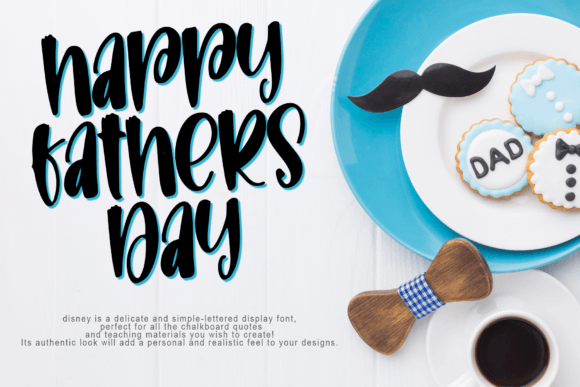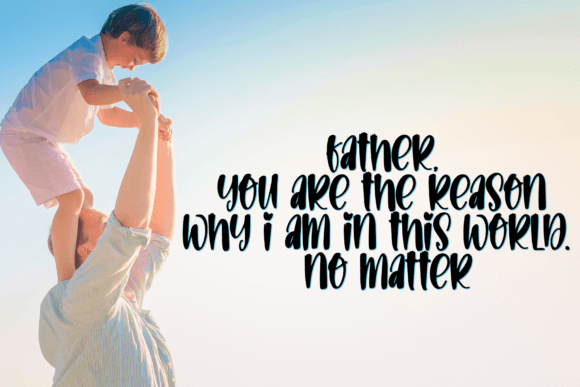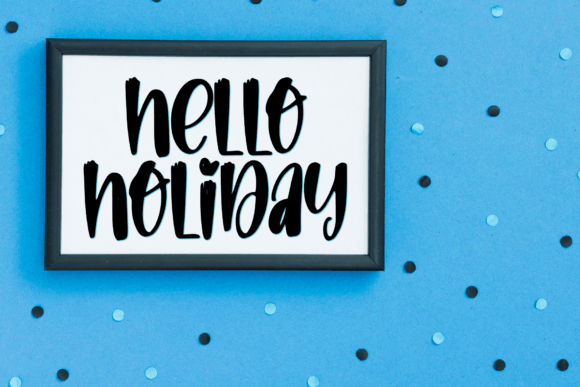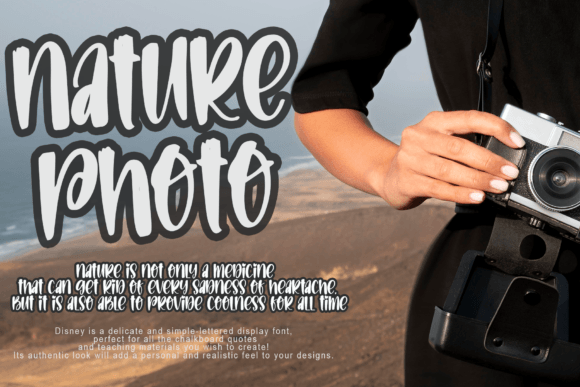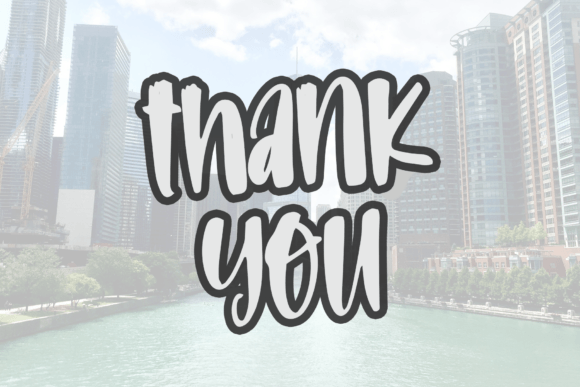
The Magical World of Disney Font: A Designer’s Delight
I’ll never forget the time I was working on a children’s book project, and my client asked me to create a custom title page that would capture the essence of their story. I spent hours scouring the internet for the perfect font, but nothing seemed quite right. That was until I stumbled upon the Disney font. Its playful curves and friendly demeanor instantly won me over, and I knew I had found the perfect fit. In this article, I’ll share my love for the Disney font, its features, and how to use it in various design platforms.
An Honest Review of Disney Font
What I Love About Disney Font
- ✨ Playful and whimsical design that’s perfect for children’s books, party invitations, and other cheerful projects
- ✅ Friendly and approachable feel that evokes a sense of camaraderie and joy
- 💕 Highly legible, even at small font sizes
- 🎉 Available in various weights and styles, making it versatile for different design applications
While Disney font is an excellent choice for many projects, it’s not without its limitations. For example:
- 🤔 It may not be the best choice for formal or professional designs, as it can come across as too playful or childish
- ⚠️ Some characters may not be suitable for use at very small font sizes, as they can become blurry or difficult to read
- Use the OpenType features, such as ligatures and stylistic alternates, to add visual interest to your design
- Explore the glyphs and OpenType features, such as swashes and ornaments, to add a touch of whimsy to your design
The Backstory of Disney Font
The Disney font was designed by a team of imaginative designers who wanted to create a font that would capture the magic and wonder of the Disney brand. With its playful curves and friendly demeanor, Disney font has become a beloved font among designers and non-designers alike.
| Font Name | Disney Font |
| Author | Creatype Designer |
Q: What is Disney font?
A: Disney font is a delightful display font that’s perfect for children’s books, party invitations, and other cheerful projects.